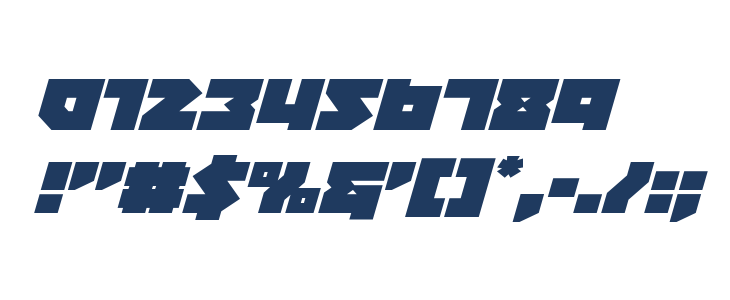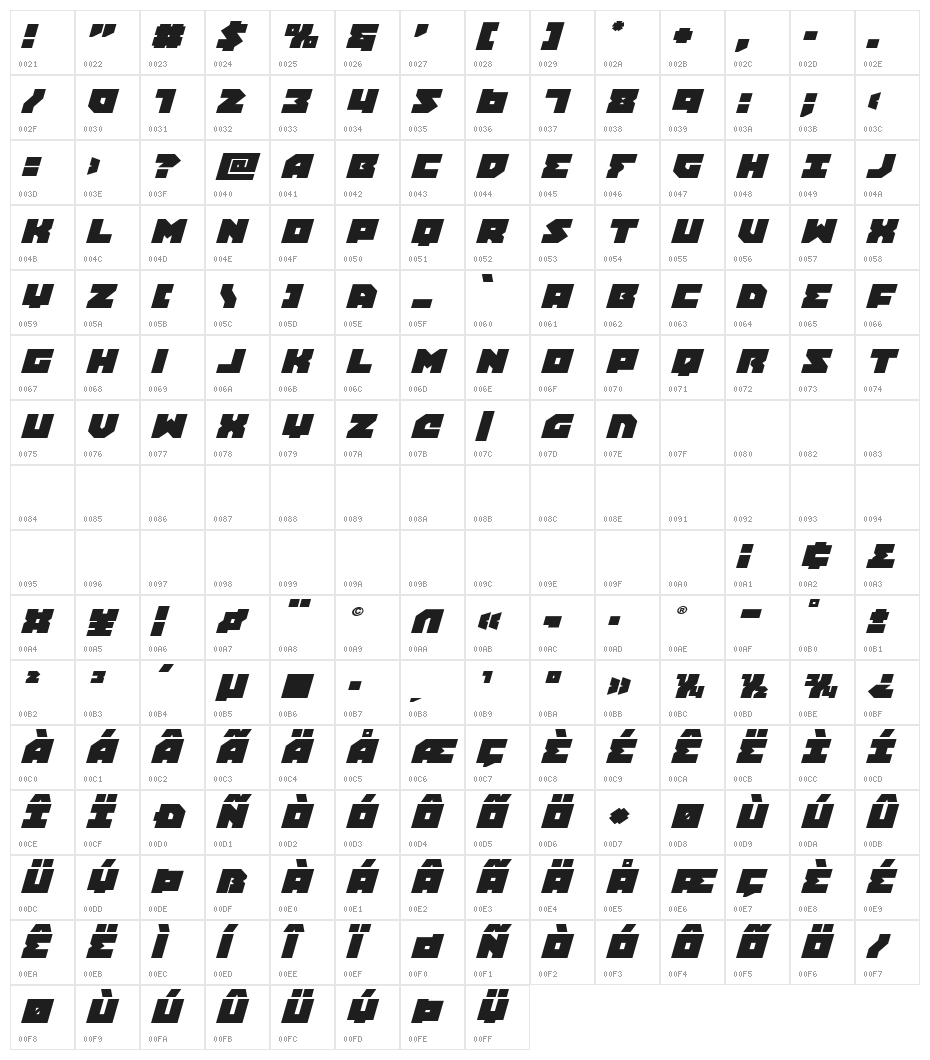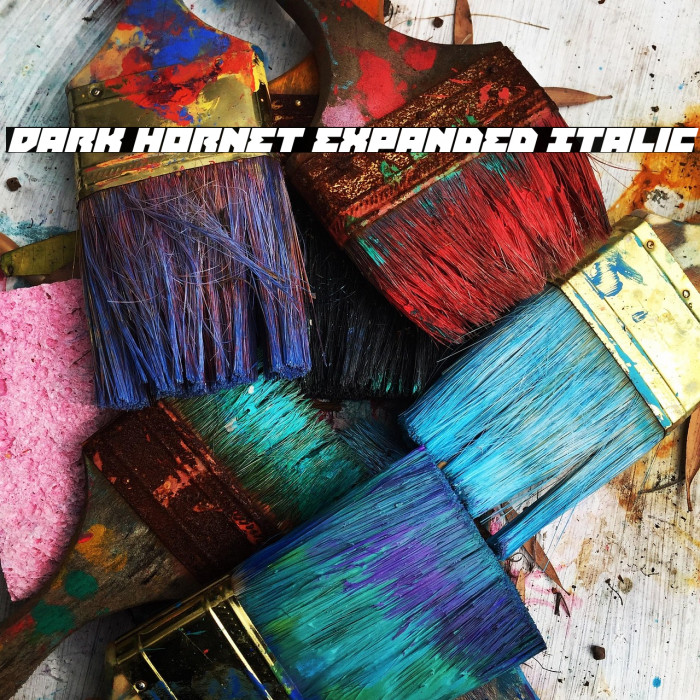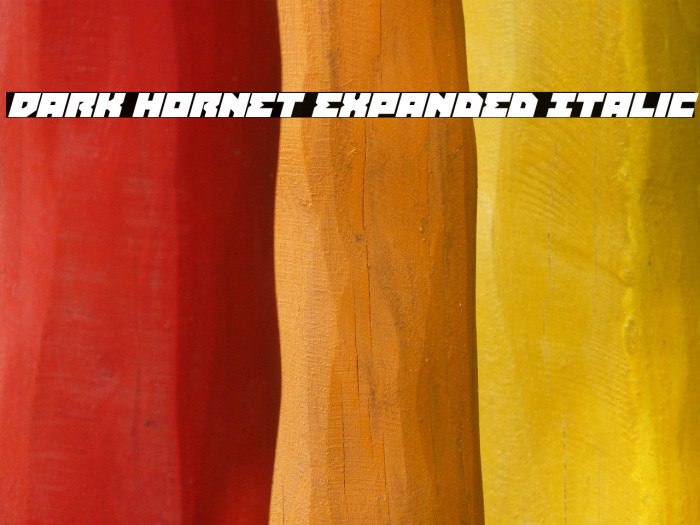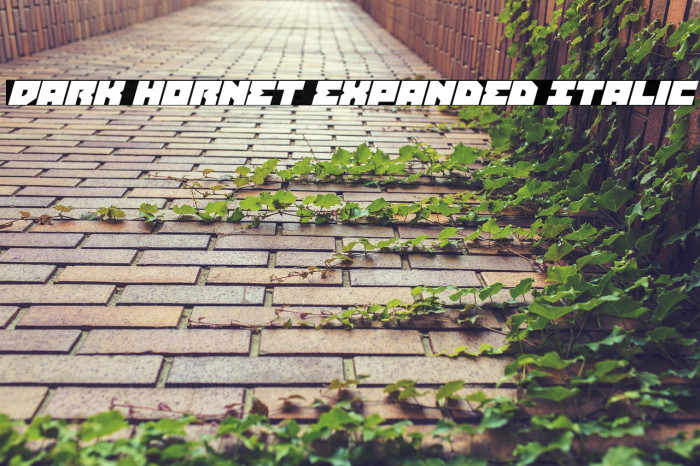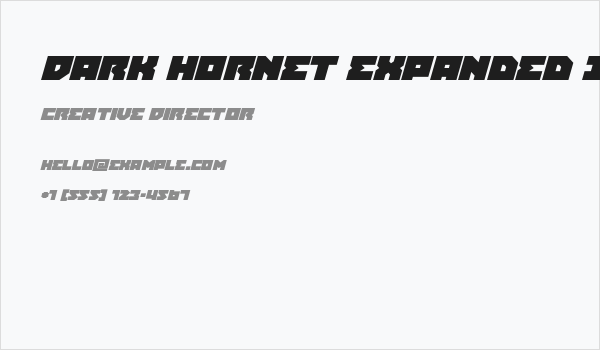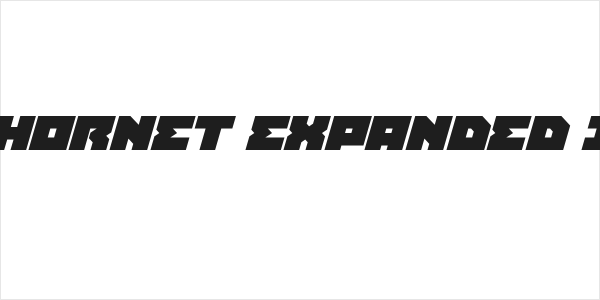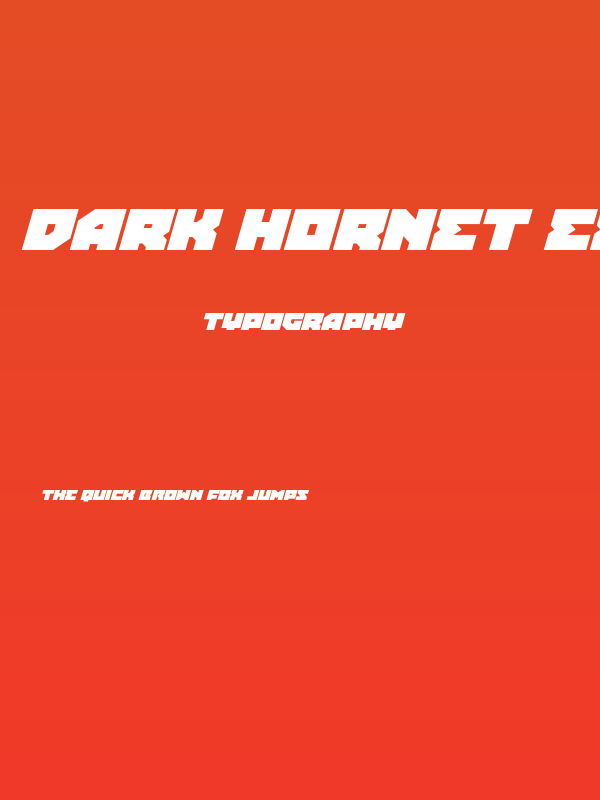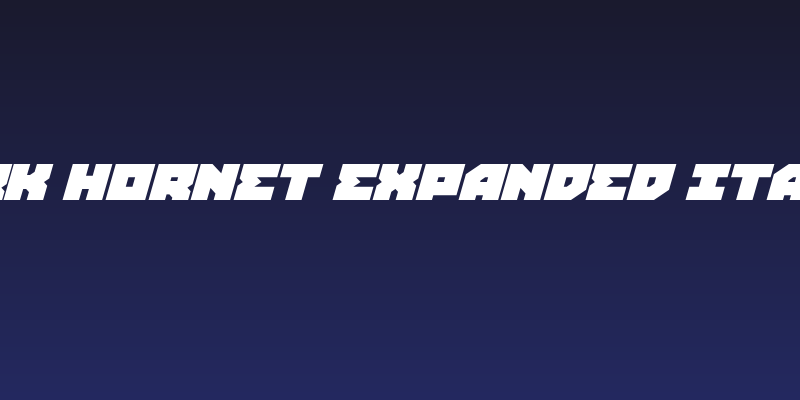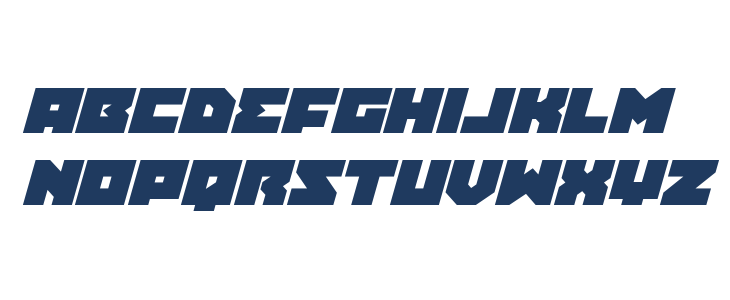
Dark Hornet Expanded Italic Font
Dark Hornet Expanded Italic Description
This font features a bold and dynamic design with an expanded and italicized style. The characters are angular and geometric, giving a futuristic and aggressive appearance. The uppercase letters are particularly striking, with sharp edges and a strong presence. The numbers and special characters maintain the same bold and angular aesthetic, ensuring consistency across all glyphs. This font is designed to capture attention and convey a sense of power and modernity.
| Proposed Projects | Ideal for projects that require a strong and modern look, such as video game titles, tech branding, sports team logos, and dynamic posters. |